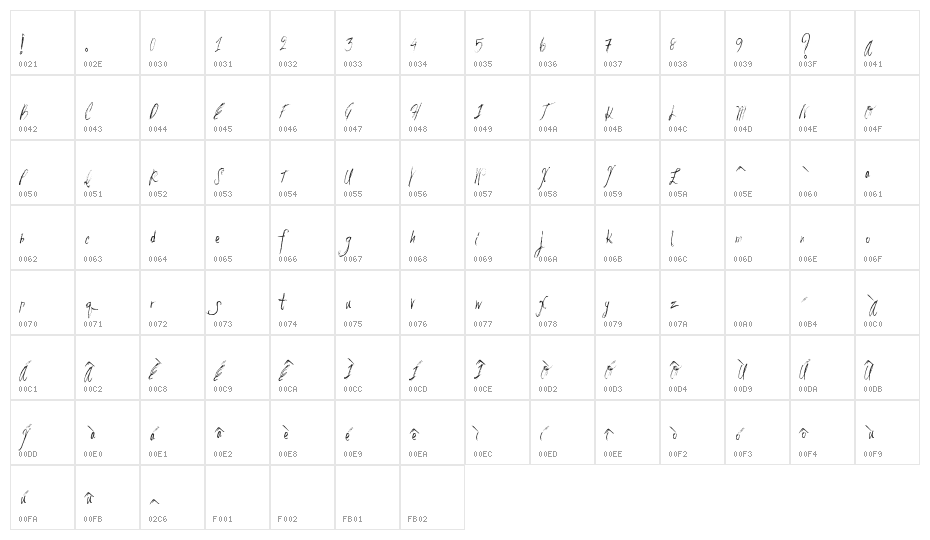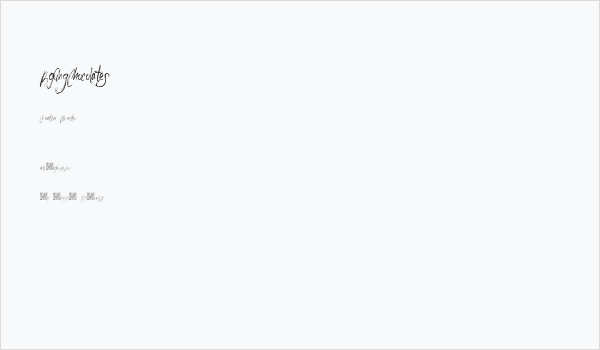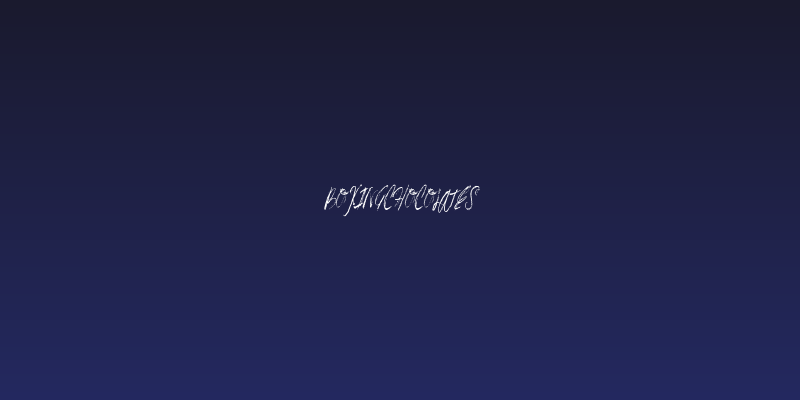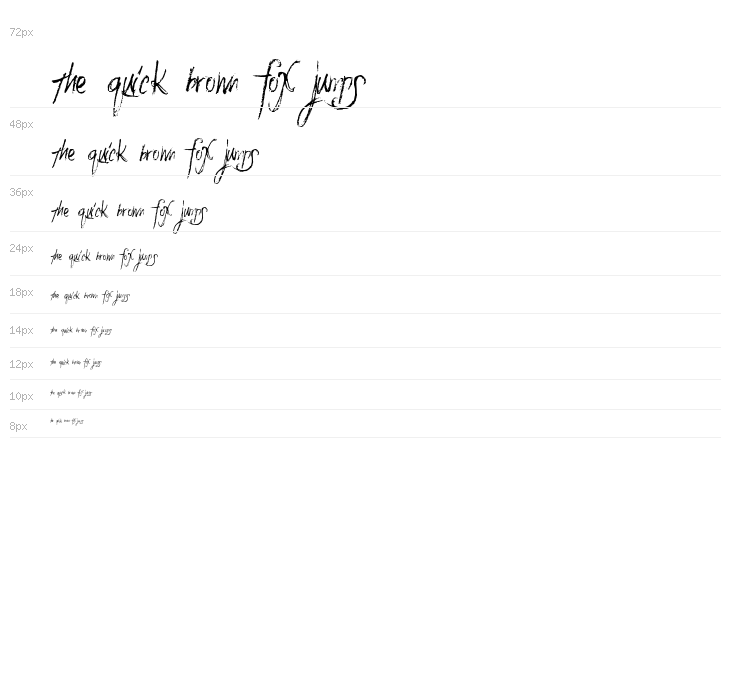
BoxingChocolates Font
BoxingChocolates Description
This font exhibits a dynamic and expressive style, characterized by its fluid, handwritten appearance. The letters are crafted with a sense of motion, featuring varying stroke widths that create a lively and energetic feel. The uppercase and lowercase letters maintain a consistent flow, while the numbers and special characters complement the overall design. The font's unique texture and artistic flair make it stand out, offering a sense of creativity and individuality. Its brush-like strokes and slight irregularities add to its charm, making it suitable for projects that require a personal touch.
| Use Case | Logos, Headlines, Artistic projects |
| Proposed Projects | Ideal for creative projects such as invitations, greeting cards, branding, and artistic posters. |